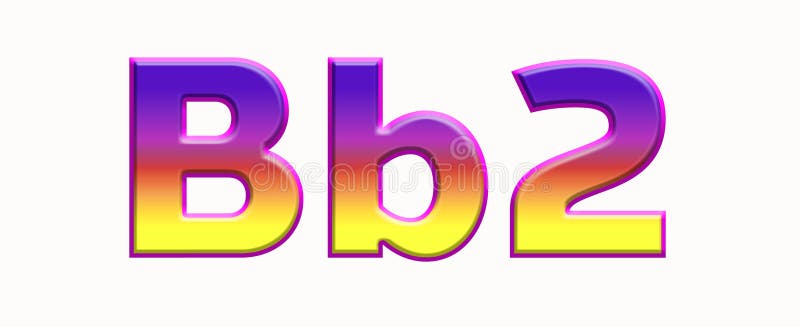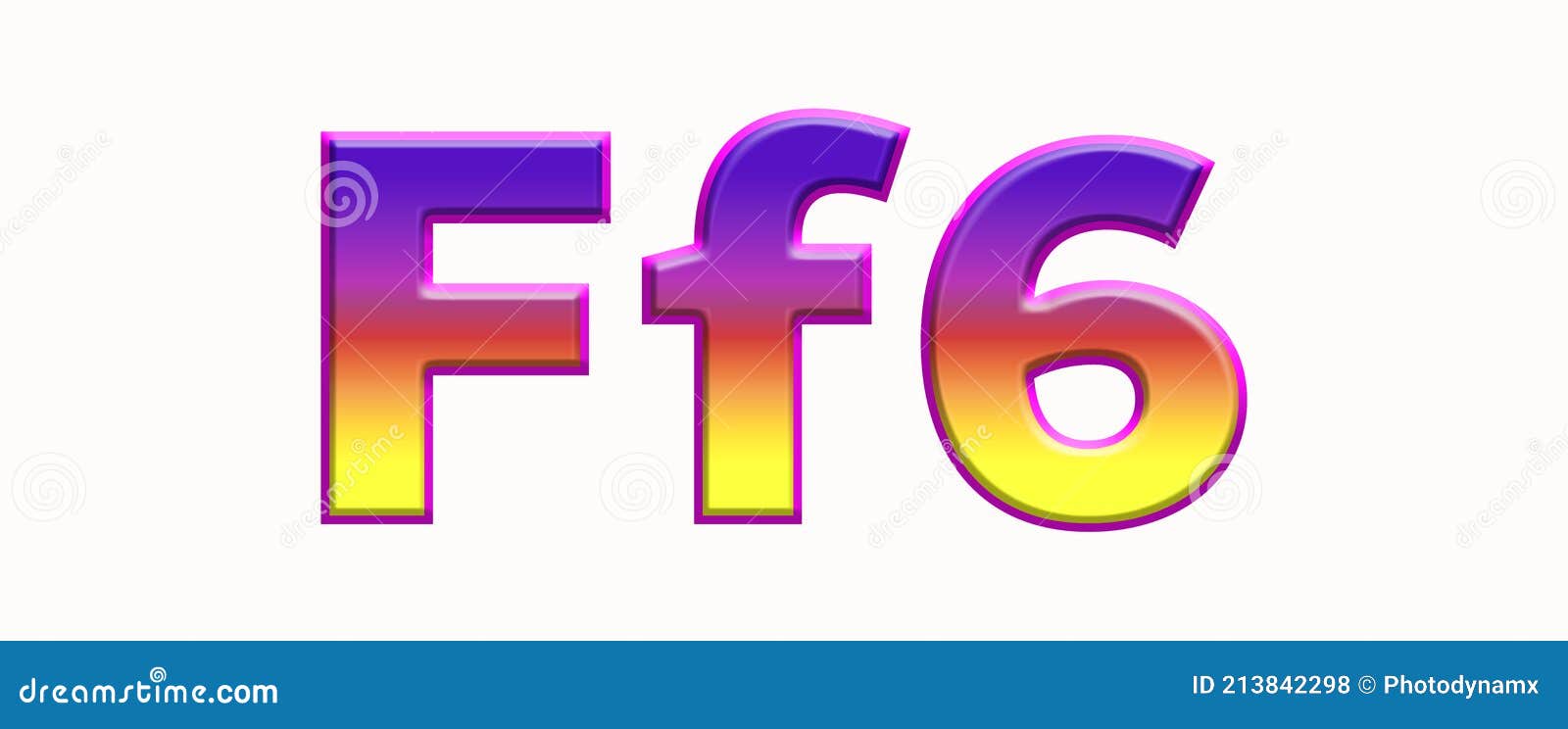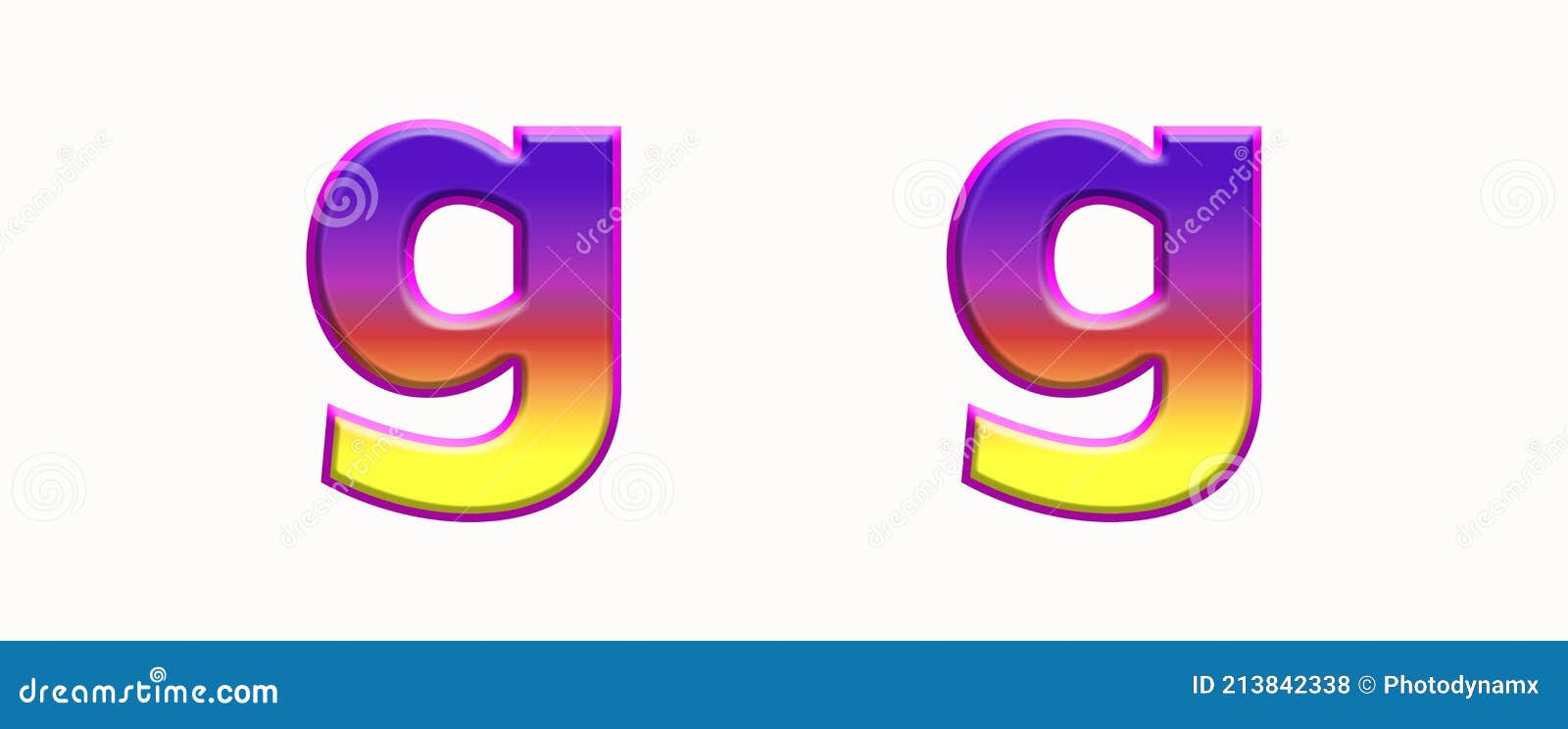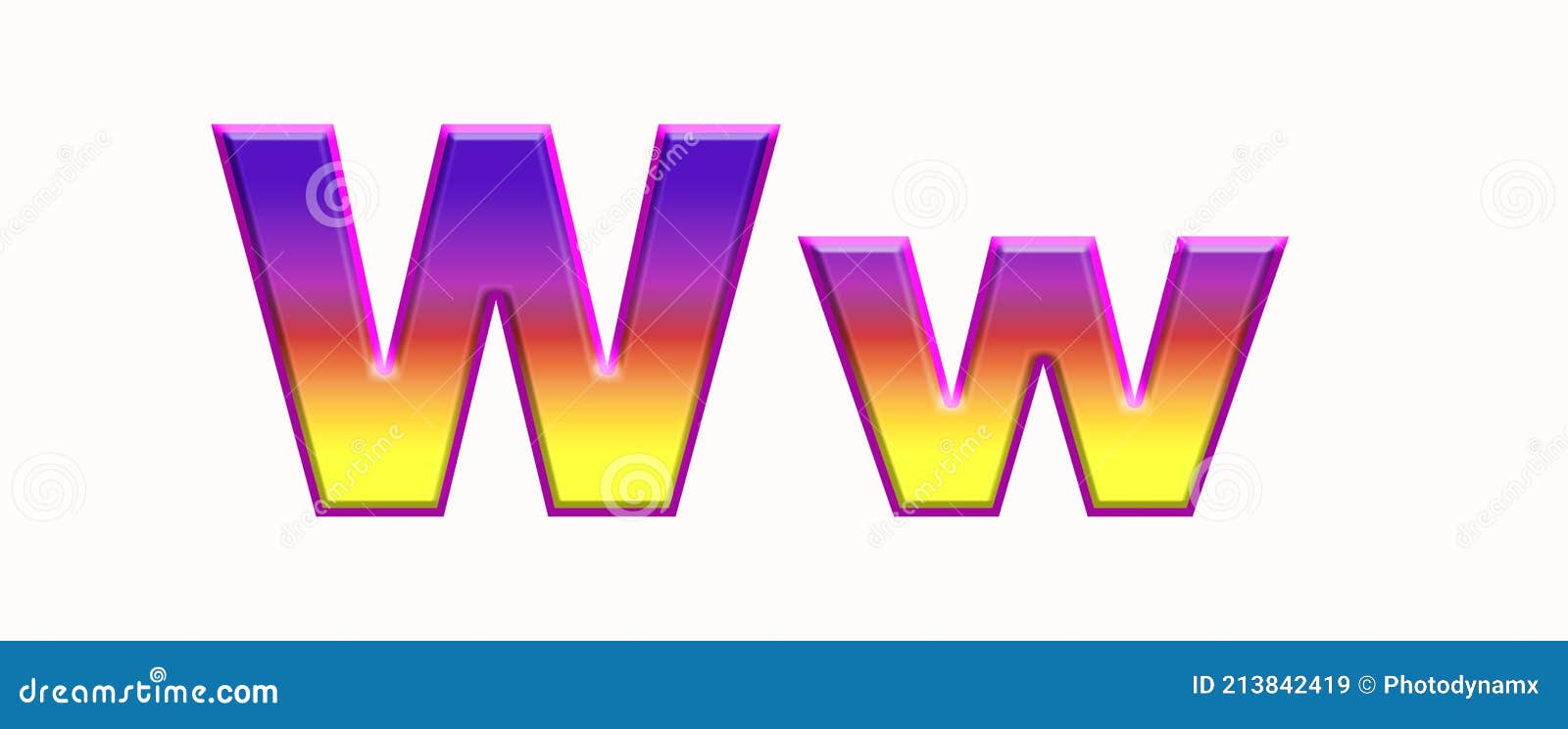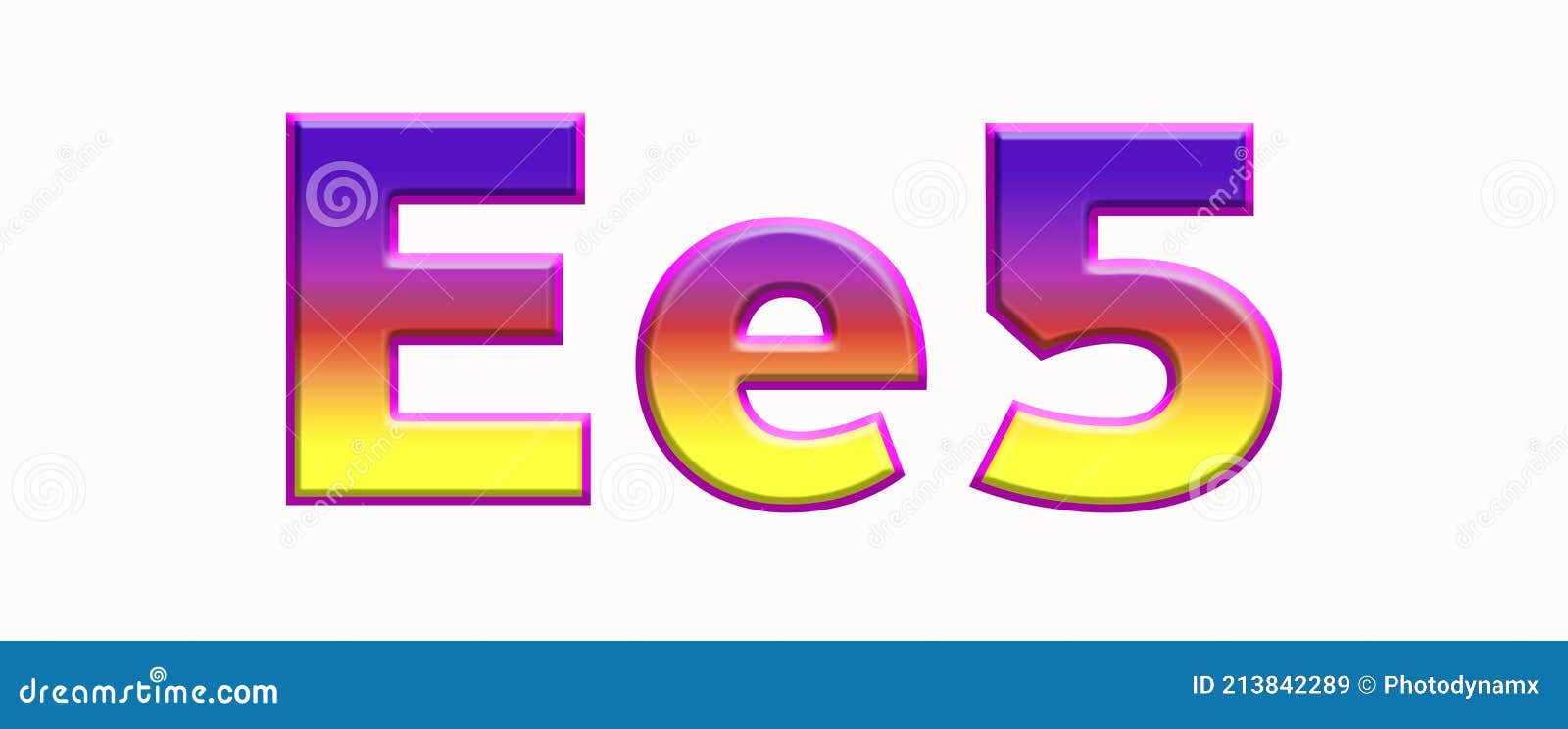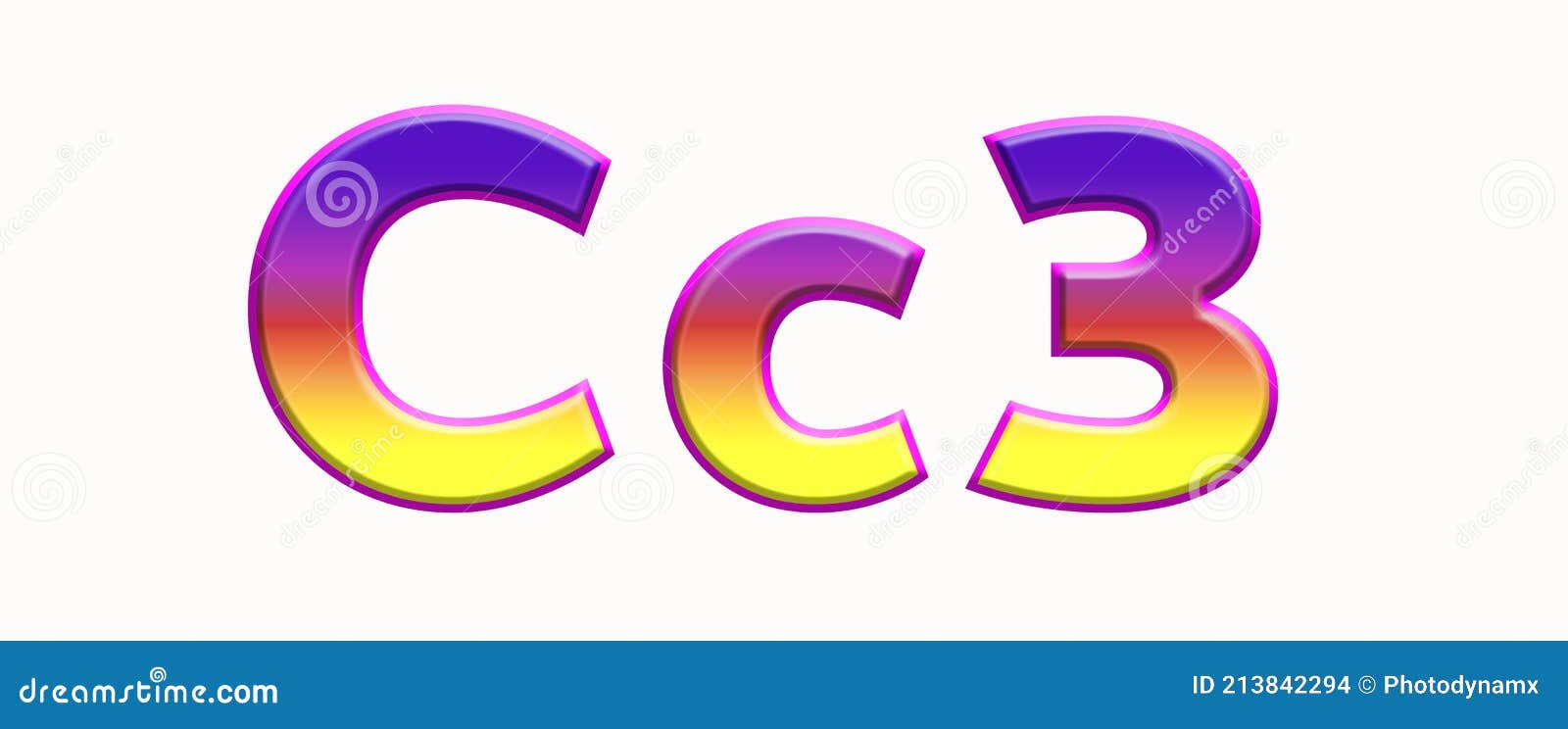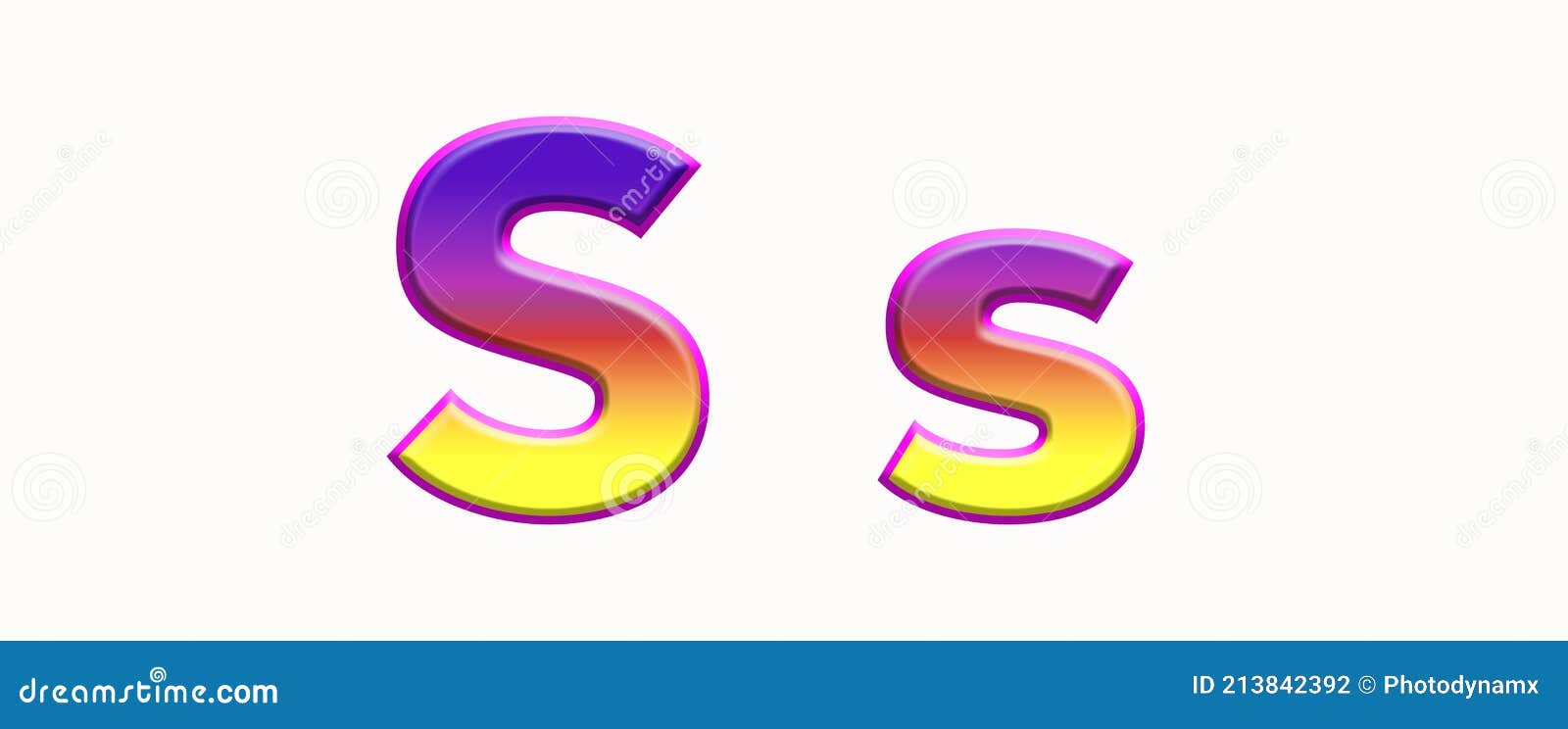
Web halcom font family. Consists of 8 uprights and 8 matching. Halcom font is a modern sans serif font with a clean and elegant geometric touch.
Votes, rated based on results identification. Halcom font family is a modern sans serif font with a clean and elegant geometric. A typeface with 16 styles, available from adobe fonts for sync and. Halcom font is a modern sans serif font with a clean and elegant geometric touch.
Download Halcom Font For Free - Web explore halcom designed by jonathan hill at adobe fonts. Halcom font family is a modern sans serif font with a clean and elegant geometric. You can download the halcom font to your. Votes, rated based on results identification. Web download the halcom font family for free.
Download Halcom Font For Free - Web halcom font family designed by jonathan hill has a total of 16 different styles. A sans serif typeface with 1 style, available from. Consists of 8 uprights and 8 matching. Halcom font is a modern sans serif font with a clean and elegant geometric touch. Comprised of 8 uprights and 8 matching italics that range from thin to black,.
Download Halcom Font For Free - Web halcom font family. Web explore halcom variable designed by jonathan hill at adobe fonts. You can download the halcom font to your. Comprised of 8 uprights and 8 matching italics that range from thin to black,. A typeface with 16 styles, available from adobe fonts for sync and.
Download Halcom Font For Free - Votes, rated based on results identification. Web explore halcom variable designed by jonathan hill at adobe fonts. Web halcom font family. Web explore halcom designed by jonathan hill at adobe fonts. Web download the halcom font family for free.
Download Halcom Font For Free - Web halcom font family. You can download the halcom font to your. Web halcom font family designed by jonathan hill has a total of 16 different styles. A typeface with 16 styles, available from adobe fonts for sync and. Consists of 8 uprights and 8 matching.
Download Halcom Font For Free - Comprised of 8 uprights and 8 matching italics that range from thin to black,. A sans serif typeface with 1 style, available from. Web halcom font family designed by jonathan hill has a total of 16 different styles. Web explore halcom designed by jonathan hill at adobe fonts. Web explore halcom variable designed by jonathan hill at adobe fonts.
Download Halcom Font For Free - Web halcom font family. Comprised of 8 uprights and 8 matching italics that range from thin to black,. Votes, rated based on results identification. Halcom font family is a modern sans serif font with a clean and elegant geometric. You can download the halcom font to your.
Download Halcom Font For Free - Halcom font family is a modern sans serif font with a clean and elegant geometric. Web download the halcom font family for free. Consists of 8 uprights and 8 matching. A typeface with 16 styles, available from adobe fonts for sync and. You can download the halcom font to your.
Download Halcom Font For Free - Web download the halcom font family for free. Halcom font family is a modern sans serif font with a clean and elegant geometric. You can download the halcom font to your. Web halcom font family designed by jonathan hill has a total of 16 different styles. A sans serif typeface with 1 style, available from.
Download Halcom Font For Free - Consists of 8 uprights and 8 matching. Web download the halcom font family for free. A sans serif typeface with 1 style, available from. Votes, rated based on results identification. Web explore halcom designed by jonathan hill at adobe fonts.
Download Halcom Font For Free - Halcom font family is a modern sans serif font with a clean and elegant geometric. Web explore halcom variable designed by jonathan hill at adobe fonts. Consists of 8 uprights and 8 matching. Web halcom font family. A typeface with 16 styles, available from adobe fonts for sync and.
Download Halcom Font For Free - Comprised of 8 uprights and 8 matching italics that range from thin to black,. A sans serif typeface with 1 style, available from. Web explore halcom variable designed by jonathan hill at adobe fonts. Web halcom font family designed by jonathan hill has a total of 16 different styles. Halcom font family is a modern sans serif font with a.
Download Halcom Font For Free - Web halcom font family designed by jonathan hill has a total of 16 different styles. Halcom font family is a modern sans serif font with a clean and elegant geometric. Halcom font is a modern sans serif font with a clean and elegant geometric touch. Comprised of 8 uprights and 8 matching italics that range from thin to black,. Web.
Download Halcom Font For Free - Votes, rated based on results identification. You can download the halcom font to your. Consists of 8 uprights and 8 matching. Web halcom font family designed by jonathan hill has a total of 16 different styles. Halcom font is a modern sans serif font with a clean and elegant geometric touch.